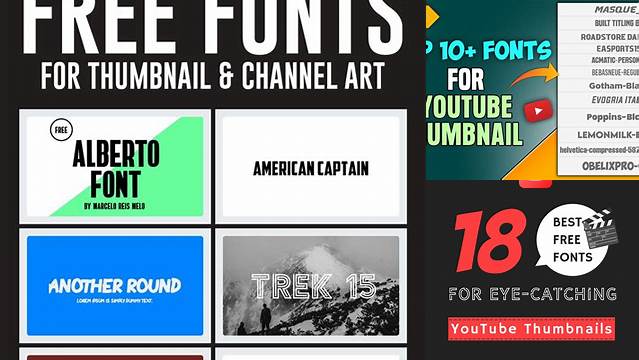
Free Fonts For YouTube Thumbnails: Attract More Views
Creating eye-catching YouTube thumbnails is crucial to grabbing viewers' attention and boosting your video's click-through rate. One of the key elements in a compelling thumbnail is the font you choose. The right font can make your text pop, convey the right message, and align with your brand. Luckily, you don't have to break the bank to find awesome fonts. There are tons of free fonts for YouTube thumbnails available that can elevate your design game.
Why Fonts Matter for YouTube Thumbnails
Free fonts for YouTube thumbnails are more than just text; they're visual cues that tell viewers what your video is about. Think of fonts as the voice of your thumbnail. Are you going for a fun and playful vibe? A bold and authoritative feel? Or a sleek and modern look? The font you choose plays a huge role in communicating these emotions and attracting the right audience.
Choosing the Right Font
Selecting the right free fonts for YouTube thumbnails is important. Consider your video's content, target audience, and brand aesthetic. A gaming channel might opt for a futuristic or edgy font, while a DIY channel might prefer something clean and approachable. Make sure the font is legible, even at small sizes, and that it complements the overall design of your thumbnail.
Top Free Fonts for YouTube Thumbnails
Let's dive into some specific free fonts for YouTube thumbnails that work exceptionally well. These fonts are not only free but also versatile and visually appealing.
Bold and Impactful Fonts
When you need to make a statement, bold fonts are your best friend. These fonts grab attention and ensure your text is easily readable.
Impact
Impact is a classic choice for YouTube thumbnails. Its thick, condensed letters command attention and make your text stand out against busy backgrounds. It's perfect for titles that need to be seen from afar. Using free fonts for YouTube thumbnails like Impact can really boost your click-through rate.
Bebas Neue
Bebas Neue is another popular option for its clean and modern look. Its tall, sans-serif letters give your thumbnail a professional touch. It works well for tech reviews, tutorials, and educational content. Using free fonts for YouTube thumbnails is a budget friendly option for creators.
Montserrat
Montserrat is a versatile font that strikes a balance between modern and classic. Its clean lines and geometric shapes make it easy to read and visually appealing. It’s a great choice for a wide range of video topics. Using free fonts for YouTube thumbnails like Montserrat makes your work look professional.
Creative and Unique Fonts
If you want your thumbnail to stand out from the crowd, consider using a creative or unique font. These fonts add personality and flair to your design.
Luckiest Guy
Luckiest Guy is a fun and playful font that's perfect for gaming channels, kid-friendly content, and animated videos. Its cartoonish style adds a touch of whimsy to your thumbnails. Many free fonts for YouTube thumbnails are good, but this is a really good one!
Bangers
Bangers is a comic-book-inspired font that's bold, energetic, and attention-grabbing. It's ideal for action-packed videos, reviews, and tutorials. This free fonts for YouTube thumbnails makes your work unique.
Amatic SC
Amatic SC is a hand-drawn font that adds a personal touch to your thumbnails. Its narrow, condensed letters make it ideal for titles and headings. Using free fonts for YouTube thumbnails can make all the difference.
Clean and Modern Fonts
For a sleek and professional look, opt for clean and modern fonts. These fonts are easy to read and convey a sense of sophistication.
Open Sans
Open Sans is a widely used font that's known for its readability and versatility. Its clean, sans-serif letters make it a great choice for a variety of video topics. Free fonts for YouTube thumbnails like Open Sans are a life saver for creators.
Lato
Lato is another popular font that's known for its modern and friendly appearance. Its rounded letters make it easy on the eyes and inviting to viewers. Using free fonts for YouTube thumbnails can really improve the overall look of your video.
Roboto
Roboto is a geometric sans-serif font that's clean, modern, and highly readable. It's a great choice for tech reviews, tutorials, and educational content. This free fonts for YouTube thumbnails is amazing for tech videos.
Choosing the right free fonts for YouTube thumbnails is essential for creating eye-catching thumbnails that attract viewers and boost your video's click-through rate. By following the tips and recommendations in this article, you can find the perfect fonts for your thumbnails and create a consistent brand identity across your YouTube channel. So go ahead, experiment with different fonts, and see what works best for you. Happy creating, guys!